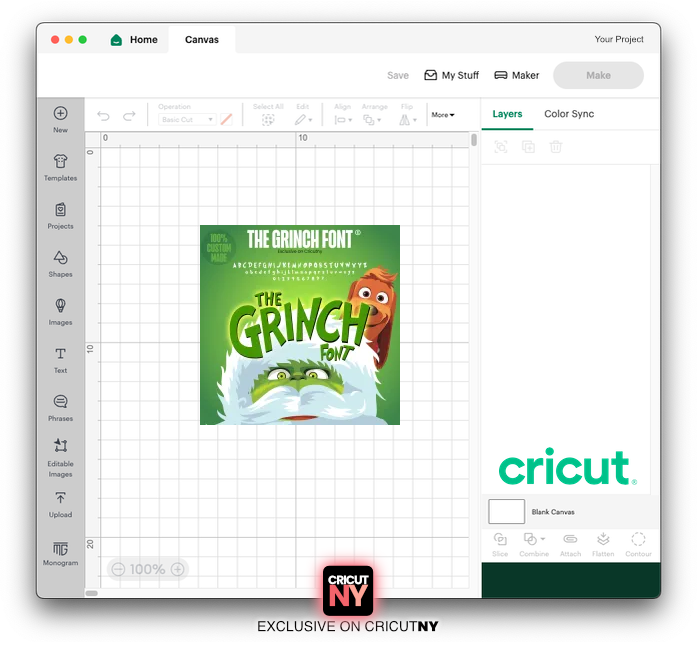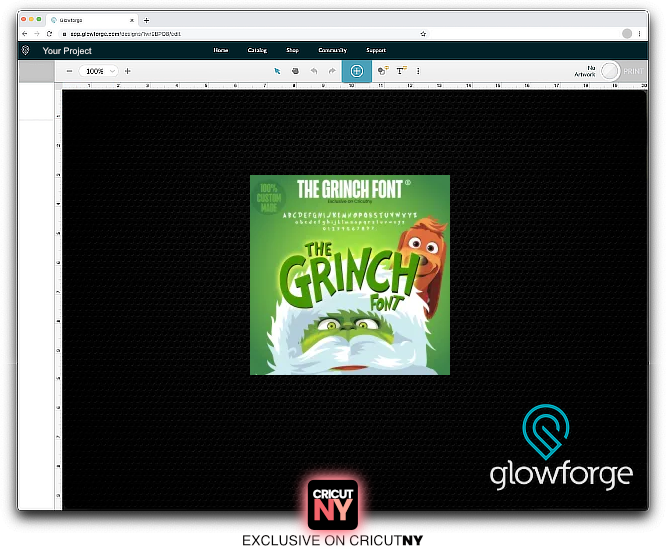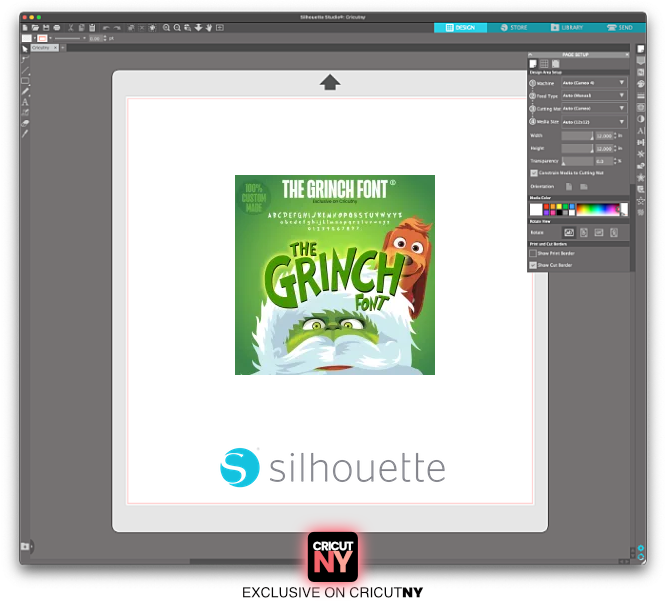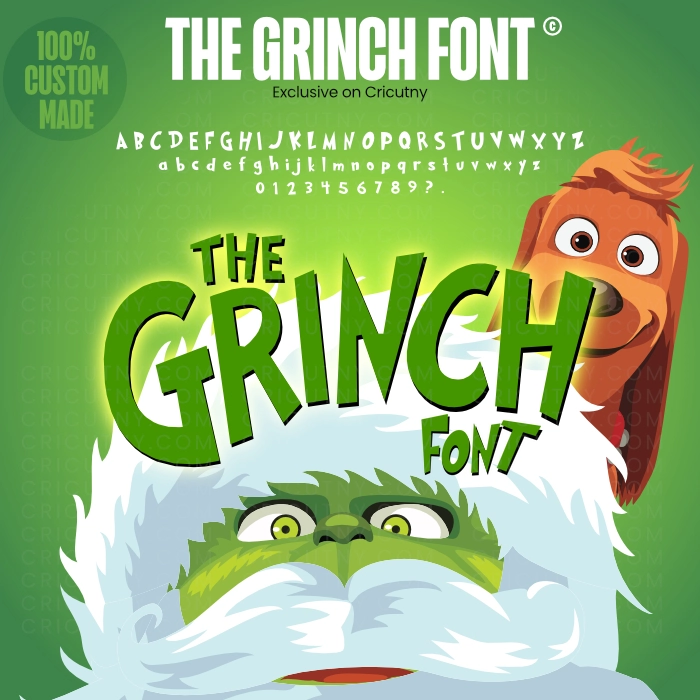
Grinch Font
Here’s the Grinch font!
It includes the lower and upper case Grinch alphabet and the grinch numbers.
I created a font that looks 99% similar to what you see on the Grinch poster and in the movie.
But first, let me explain something about the Grinch design material. The artist who created the grinch graphic material, including the logo, did not purchase an all-ready-to-use font like people on the web. What they did was create a custom font for the grinch movie. In short, there is no official grinch font. Everything you see over the web is purely speculative and lookalike font of the Grinch movie. All the characters you keep seeing on Etsy or the free font website are far from the Grinch movie (Scroll down to see the font comparison). I prefer to clarify those details.
Compare with the others
I noticed most of the Grinch fonts over the web and on the free font website need to be corrected. So I did my best to create a Grinch font close to the original grinch text.
You can compare it with the letter “C.”